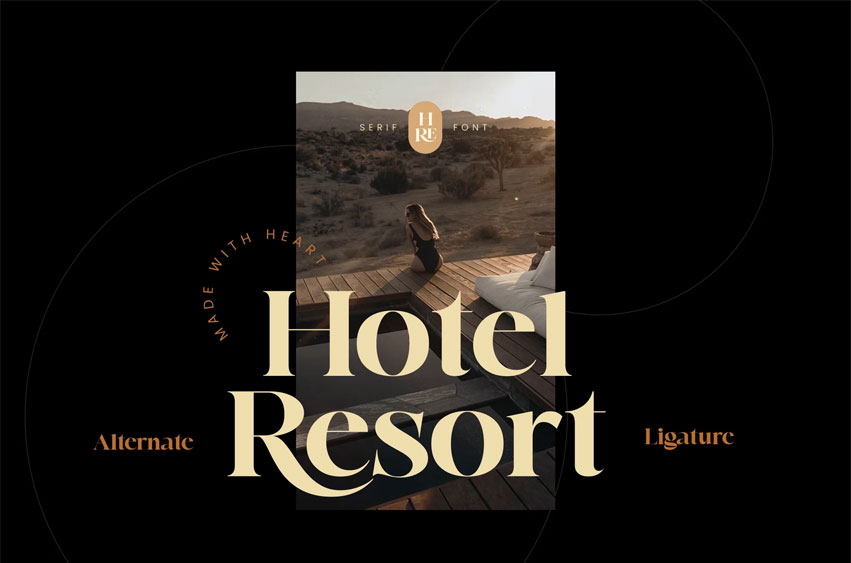
Hotel Resort Font
Hotel Resort Font is an elegant business serif font. This font makes a harmonious combination for your modern and classic layouts.
Perfect for any luxury design, like a hotel logo, restaurant menu, restaurant poster, website, wedding invitation, and many others